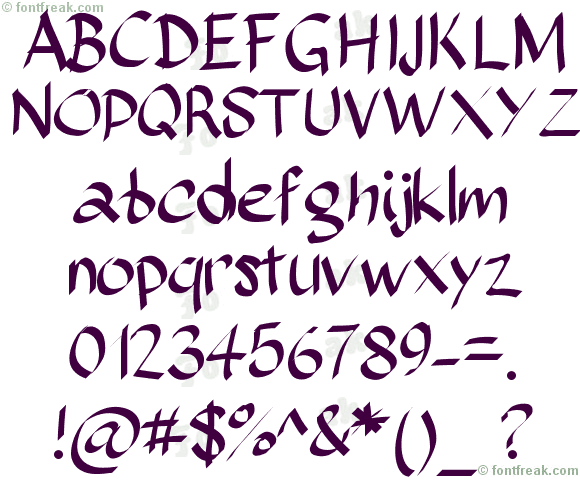
Sundayscript
About Sundayscript
Sundayscript, designed by Peax Webdesign, is a captivating script font that embodies a playful yet elegant aesthetic. This font falls into the decorative category, making it an excellent choice for projects that require a touch of whimsy and personality. The visual characteristics of Sundayscript are marked by its fluid strokes and varying weight, which create a dynamic contrast that draws the eye. The letterforms exhibit a charming irregularity, combining both sharp edges and soft curves, while the spacing between characters ensures legibility without sacrificing style. This unique blend of characteristics makes Sundayscript an ideal choice for a variety of creative applications.
One of the best use cases for Sundayscript is in wedding invitations, where its romantic flair can set the tone for a special day. It also works wonderfully for restaurant menus, adding a distinctive charm that can enhance the dining experience. Additionally, Sundayscript is suitable for creative project titles and movie posters, where it can evoke a sense of excitement and intrigue. Small business owners and content creators will find this font particularly appealing for branding materials, social media graphics, and promotional content, as it captures attention and conveys a memorable identity.
What truly makes Sundayscript exceptional is its ability to blend artistic flair with functionality. Its distinctive appearance can elevate any design, making it not just a choice, but a statement. Whether used in print or digital formats, Sundayscript invites creativity and inspires a sense of joy.